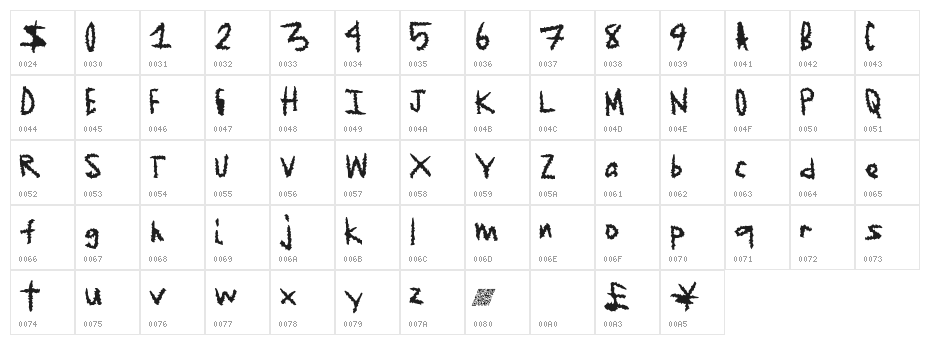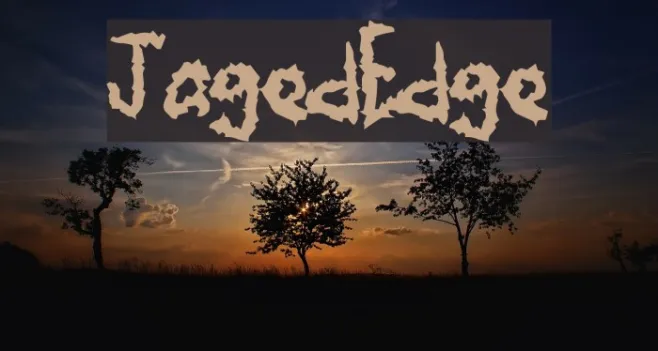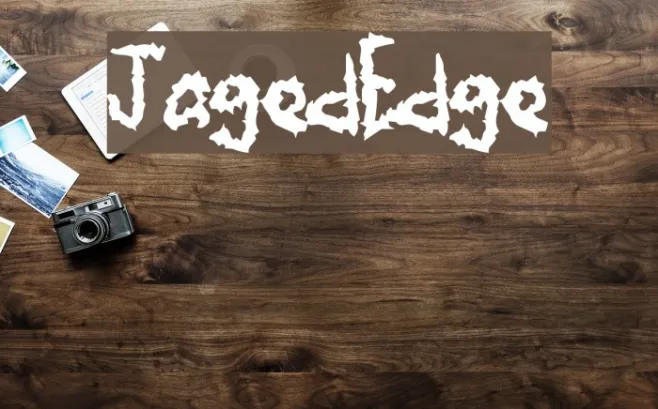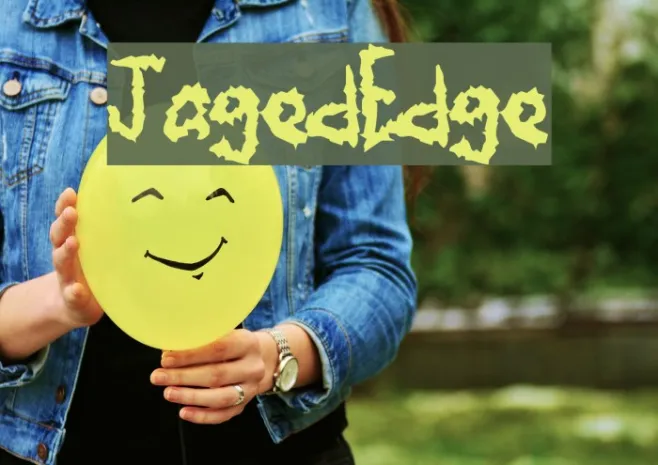
JagedEdge Font
JagedEdge Description
This font features a rugged, jagged design that gives it a distinct and edgy appearance. The characters are irregular and sharp, resembling torn or shredded edges, which adds a dynamic and aggressive feel. The uppercase and lowercase letters maintain a consistent style, with each character exhibiting unique, uneven contours. Numbers and special characters follow the same jagged theme, ensuring uniformity across the font set. This font is ideal for projects that require a bold, unconventional look, such as horror-themed designs, edgy branding, or artistic posters.
| Proposed Projects | Horror-themed designs, edgy branding, artistic posters, album covers. |